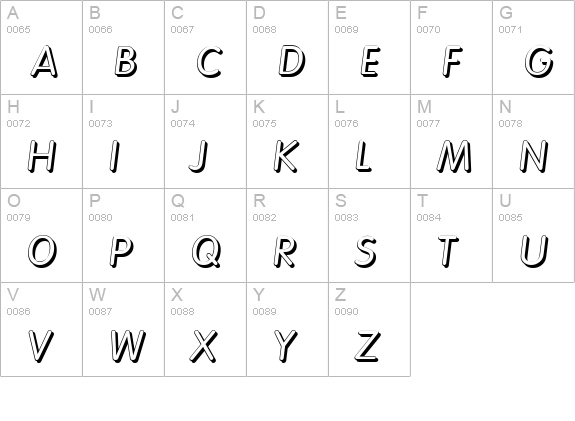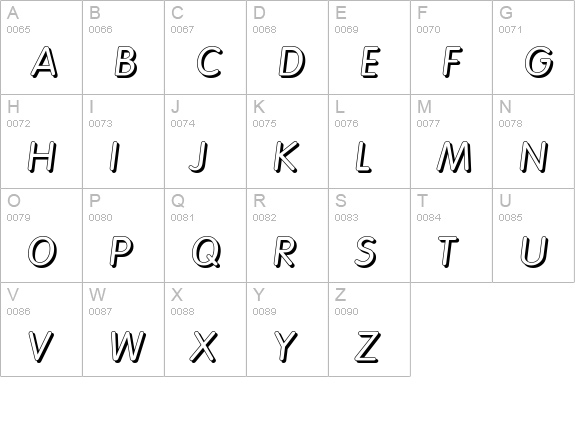
VolkswagenShadow-Italic Font Details
VolkswagenShadow-Italic is a distinctive, italic variant in the VolkswagenShadow typeface family \xE2\x80\x94 well suited to design and typography projects.
VolkswagenShadow-Italic font is a sleek and modern typeface that exudes sophistication and style. Its italicized design adds a touch of elegance to any project, making it perfect for branding, advertising, and more. The font features clean lines and a subtle shadow effect that gives it a unique and eye-catching look. Best of all, VolkswagenShadow-Italic font is completely free to download at FontsMarket.com. Whether you're working on a personal project or a professional design, this font is sure to elevate your work to the next level. Download VolkswagenShadow-Italic today and enhance your designs with its timeless appeal and contemporary flair.